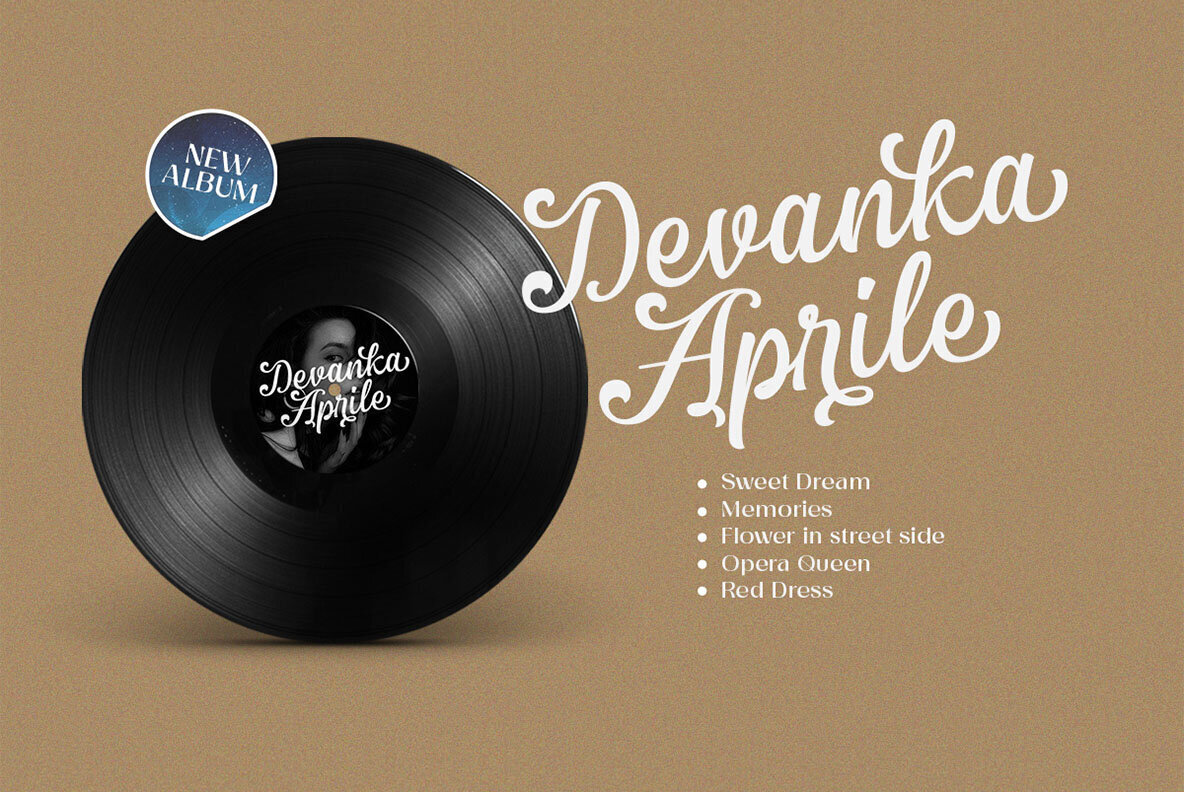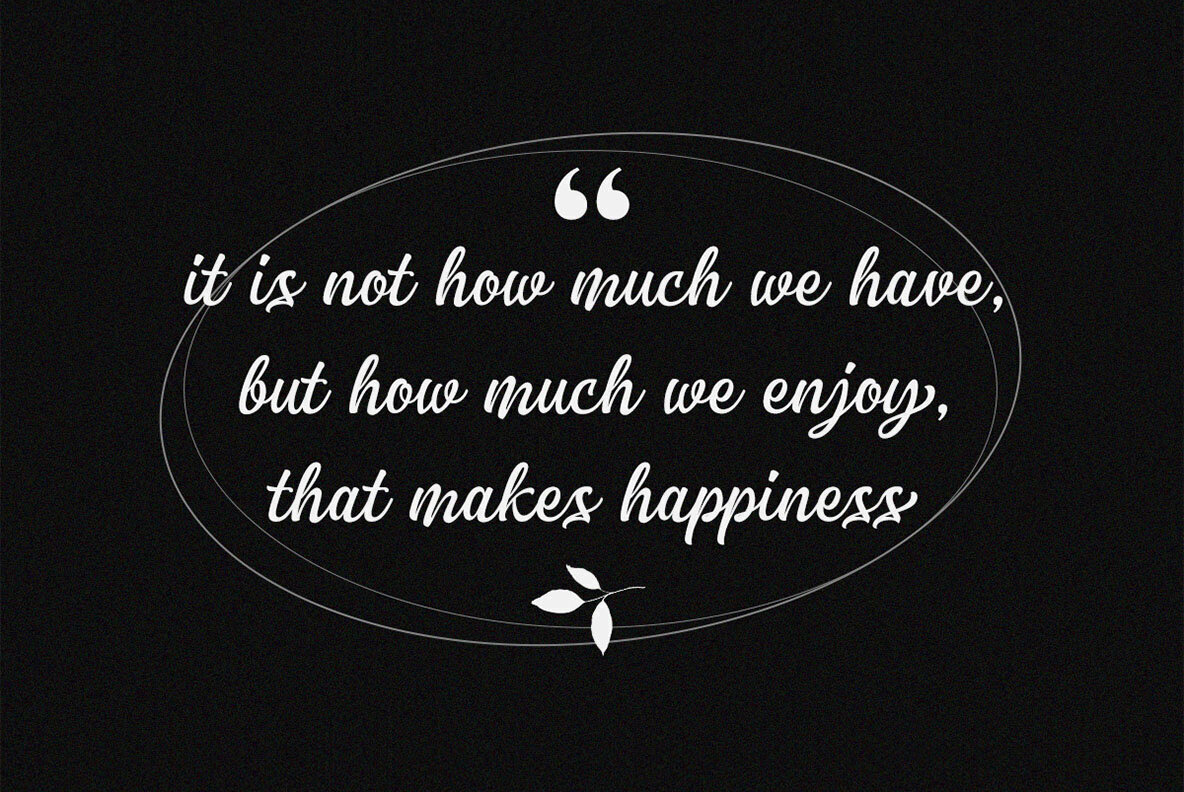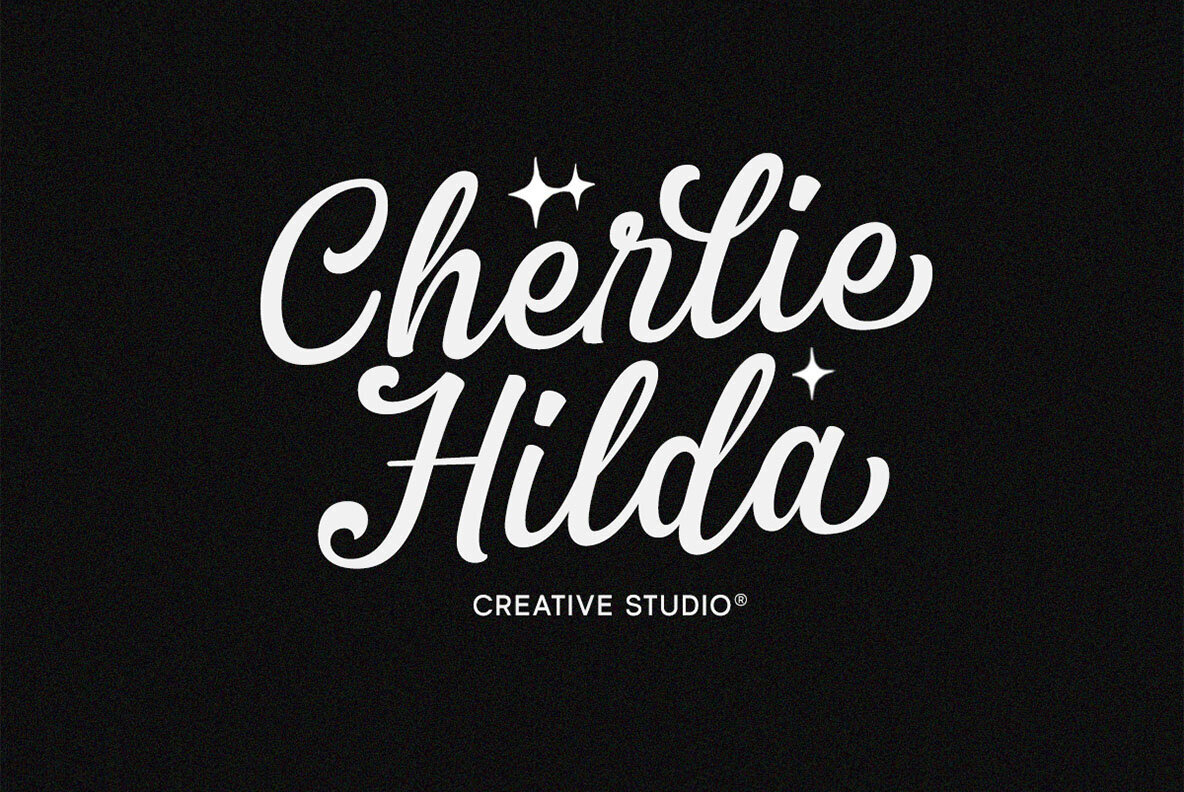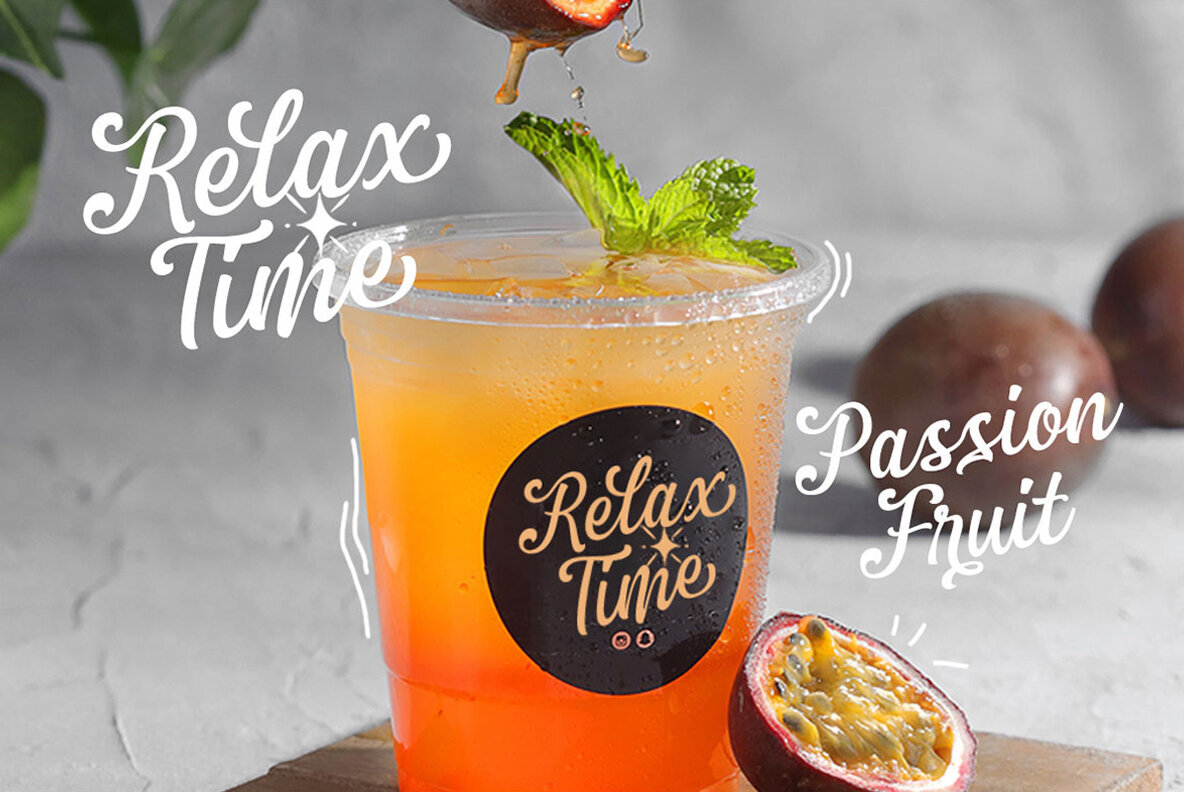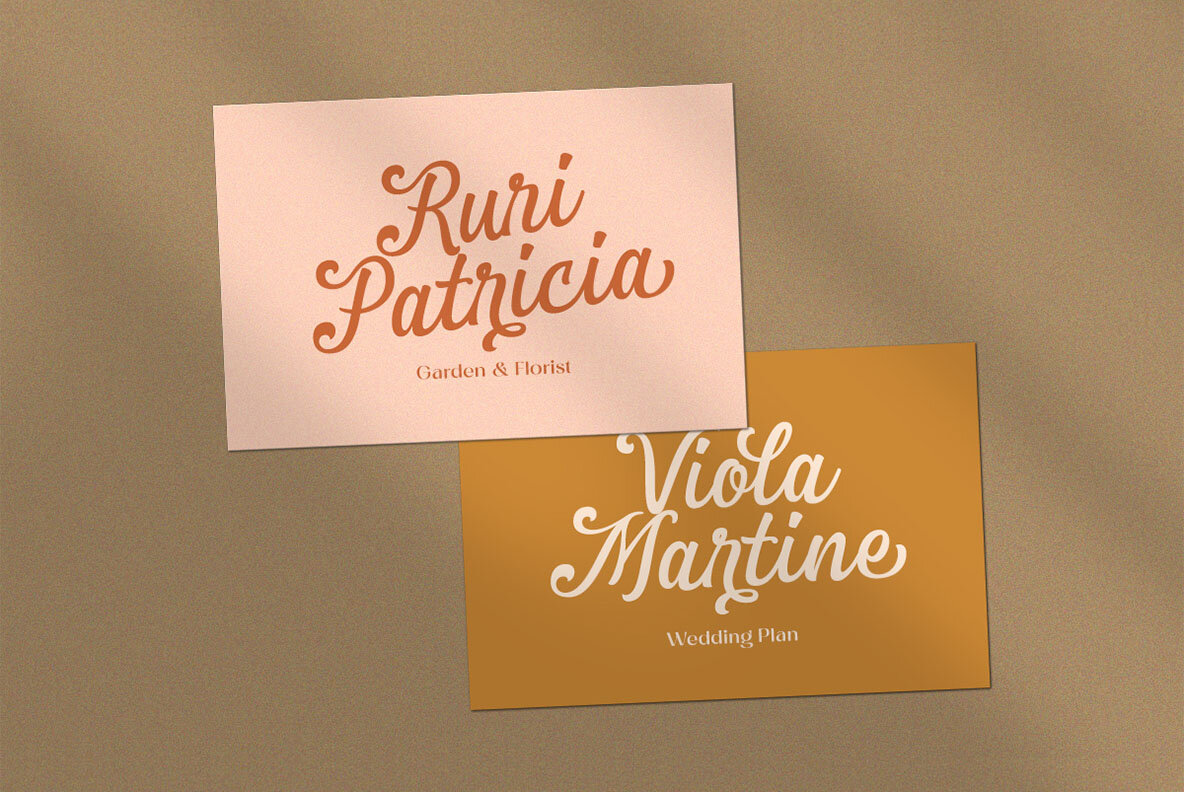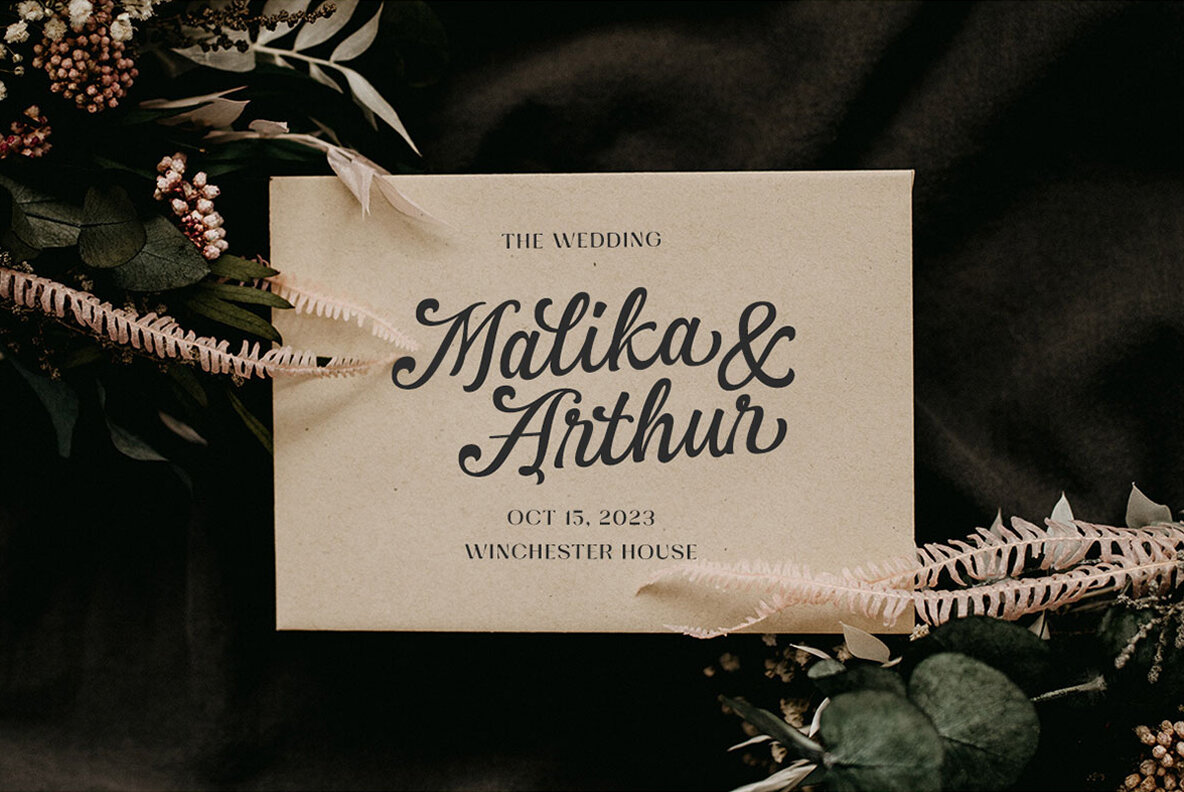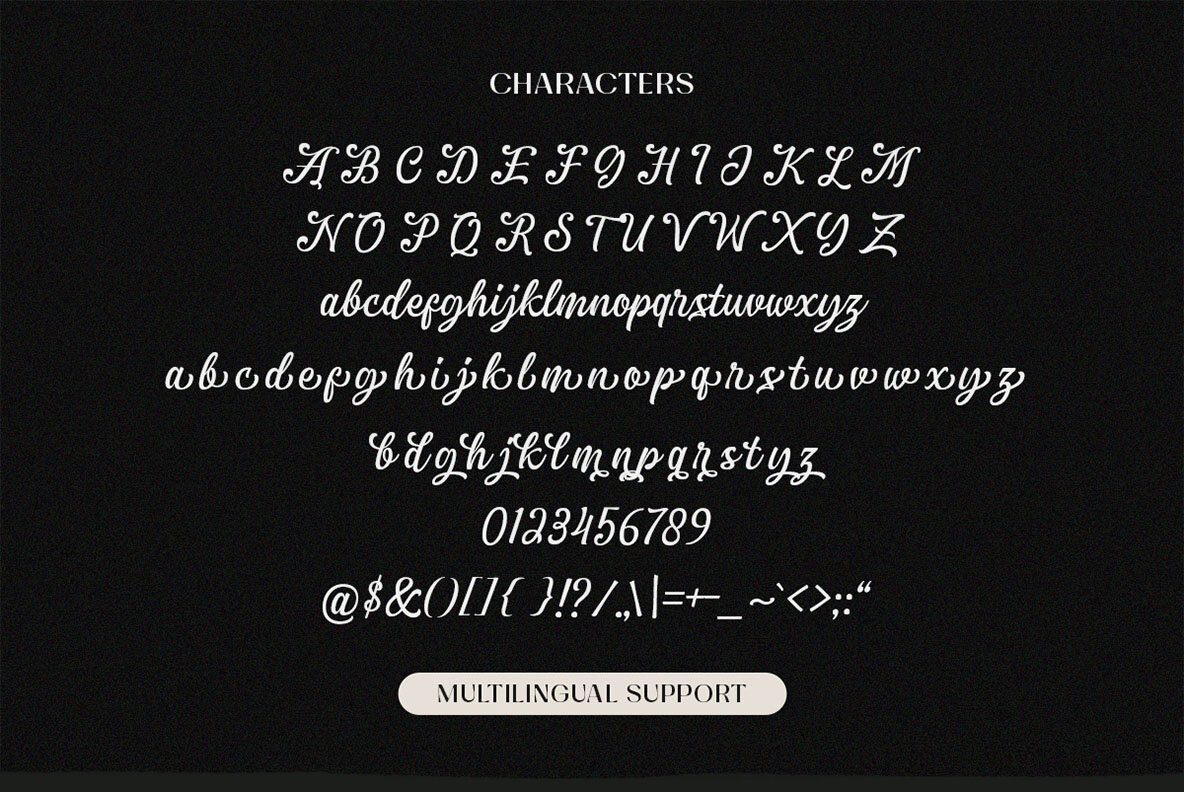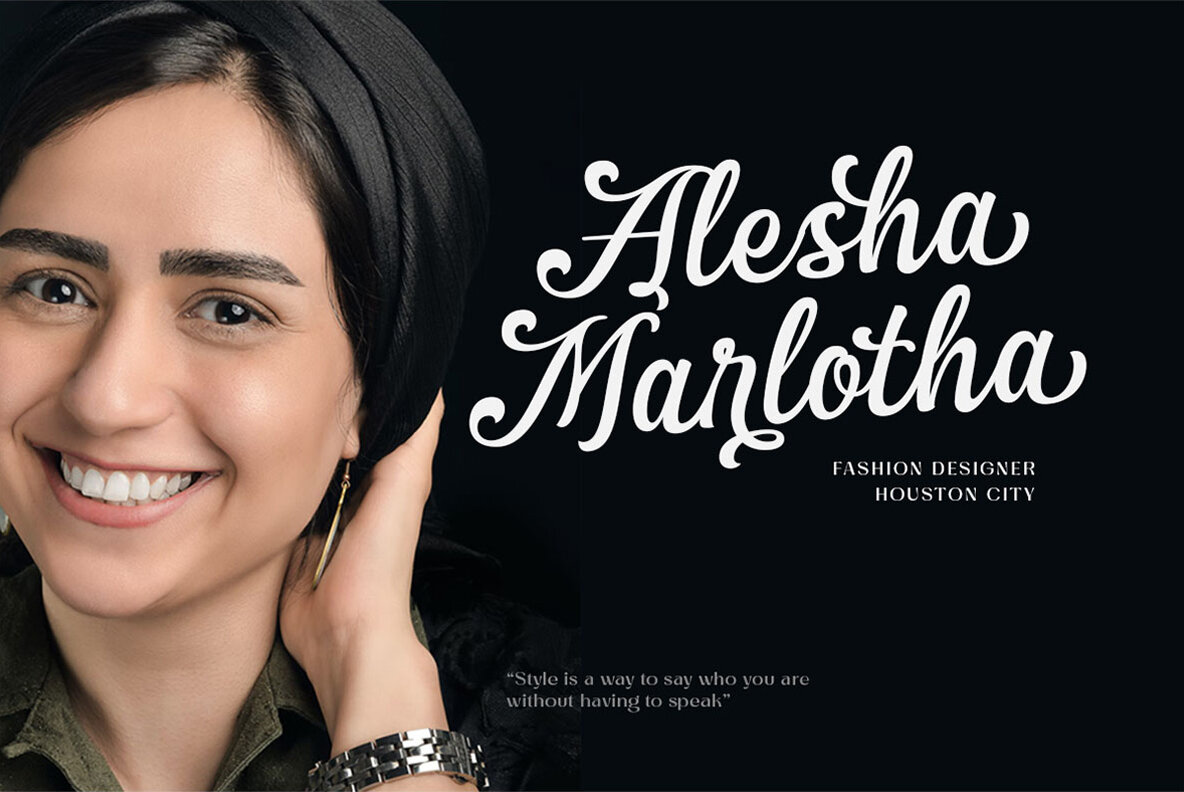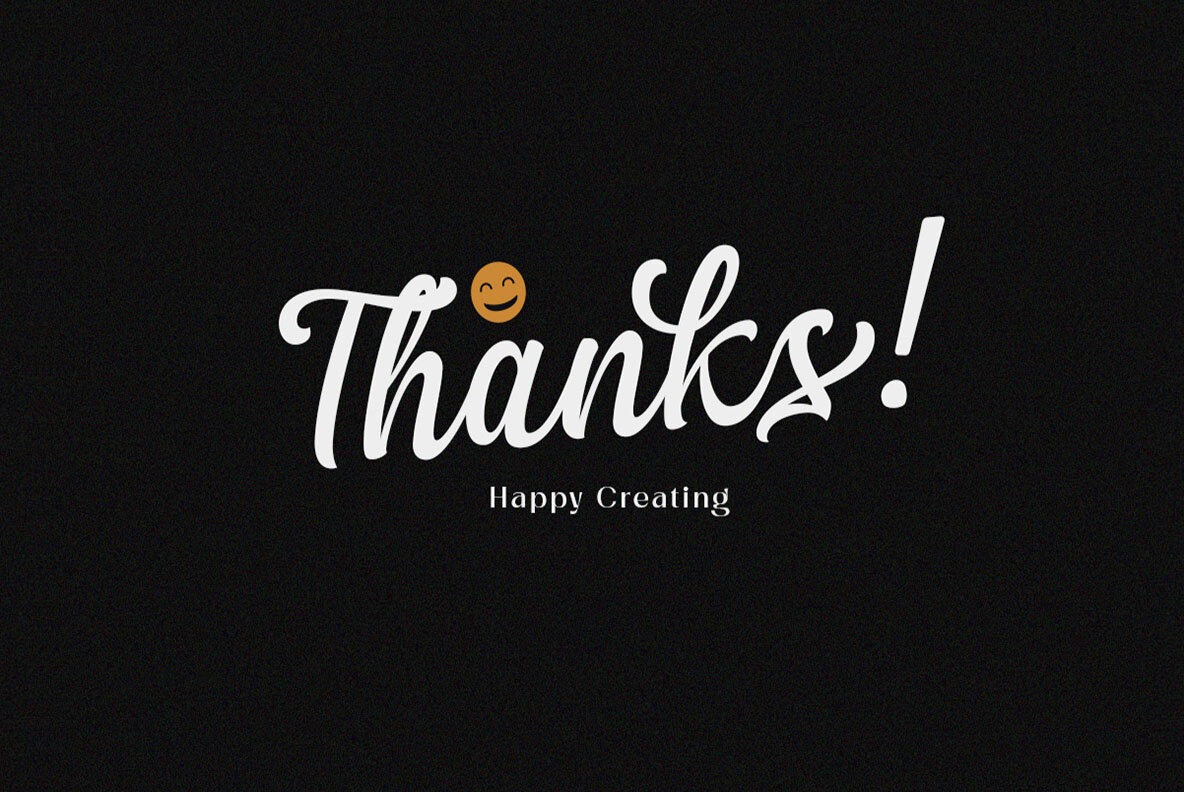
Briella Font
In the realm of sophisticated design, Briella Script emerges as an indispensable tool with its graceful form and innate class. Designed with precision, this script font excels in crafting memorable logos and enhances formal presentations such as invitations, labels, and editorial layouts. Additionally, its application extends to greeting cards, packaging, and fashion, effortlessly marrying elegance with a contemporary flair.Briella: A Script of Elegance and Versatility